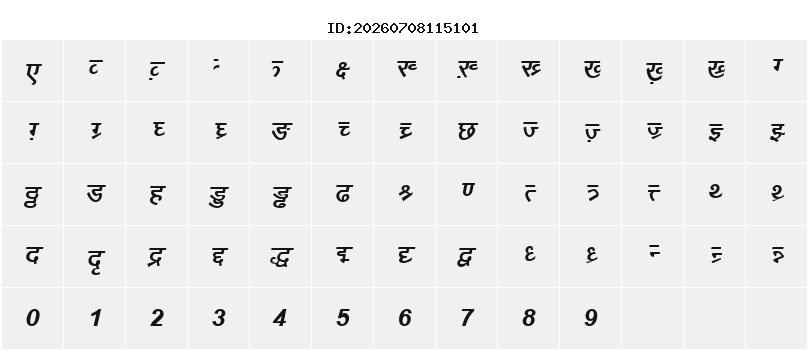
About DV_Divyae.ttf
DV_Divyae.ttf is a modern, elegant sans-serif font designed for ultimate readability and visual harmony. Perfect for branding, headlines, web design, and print materials.